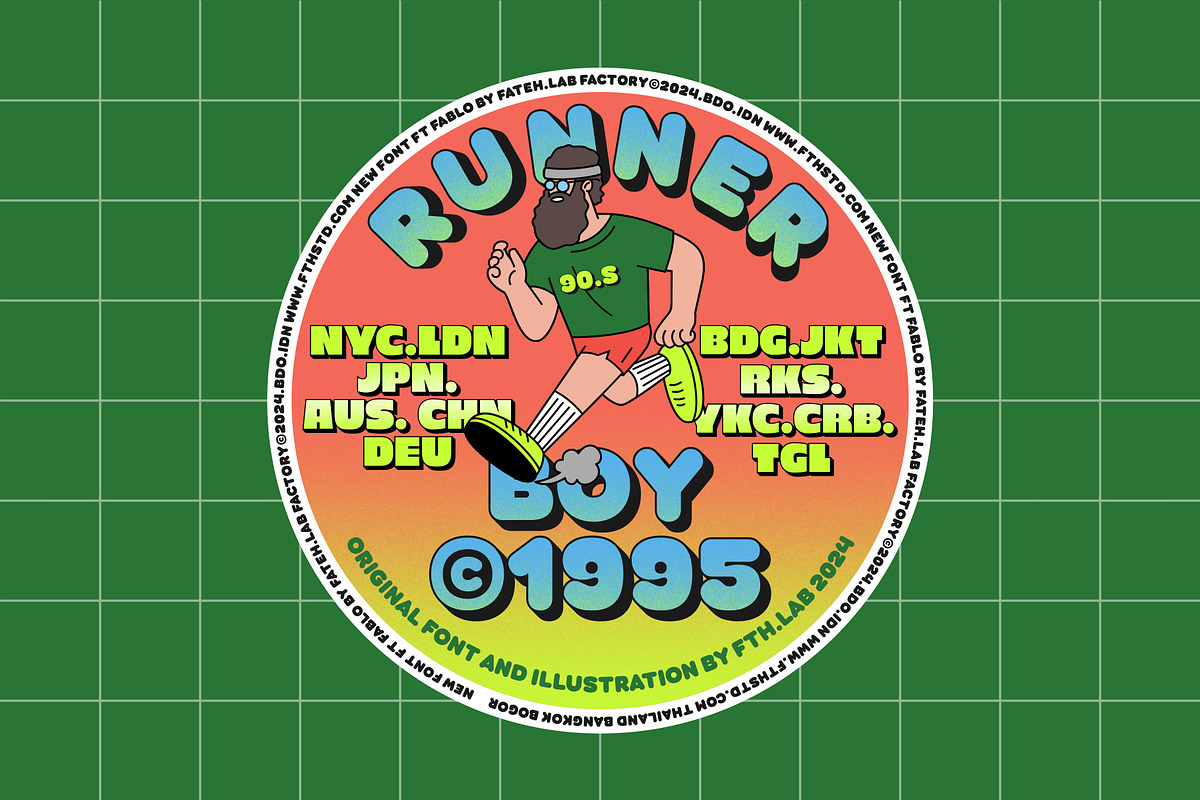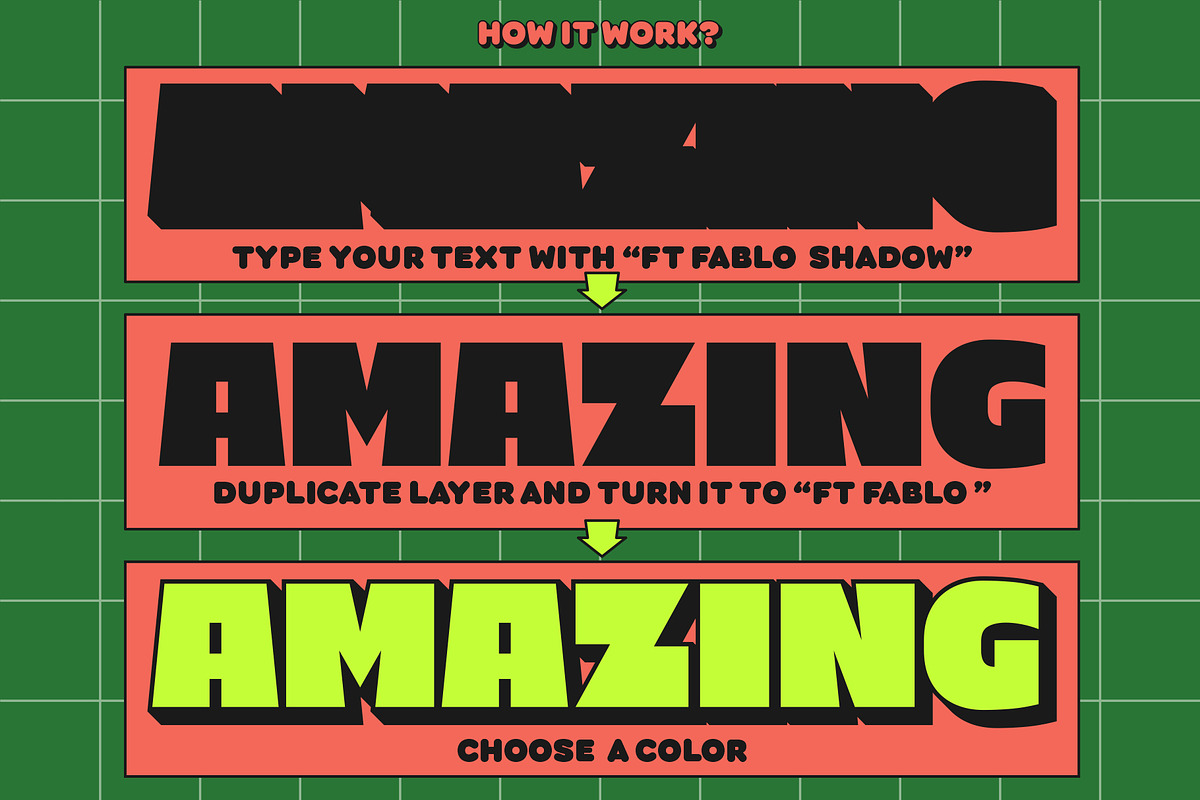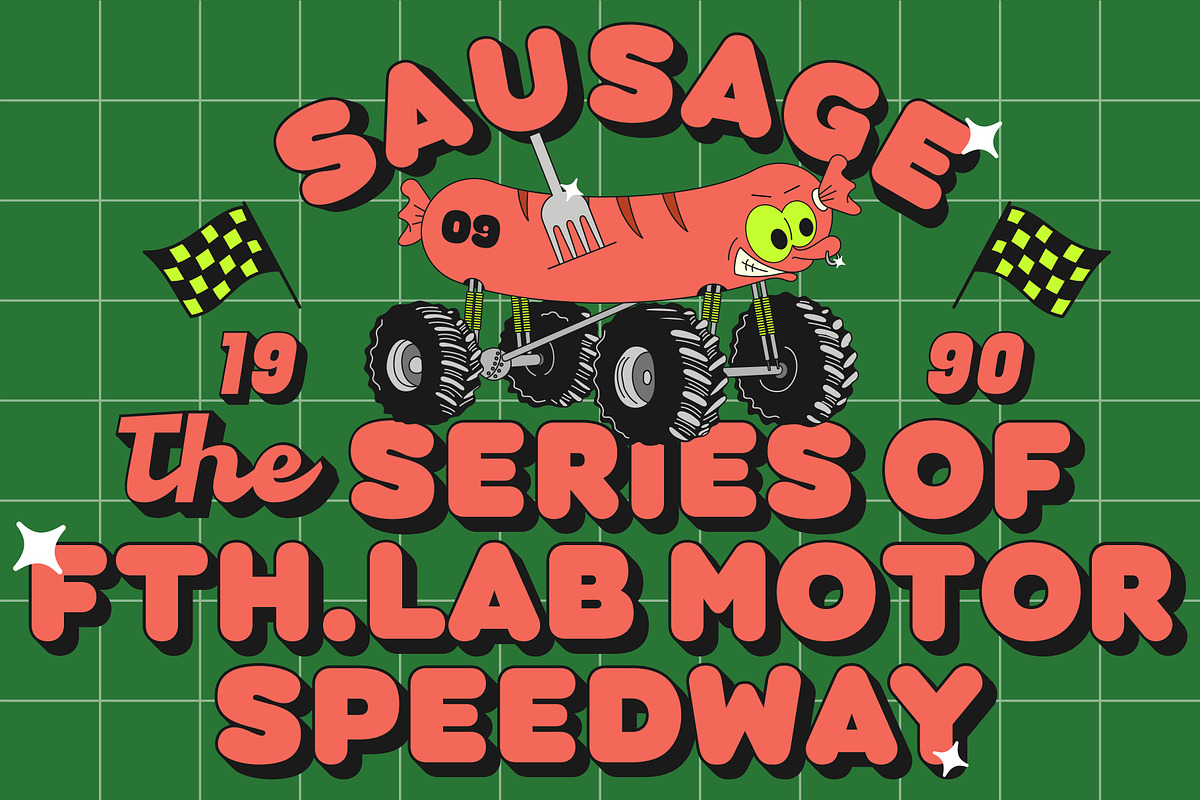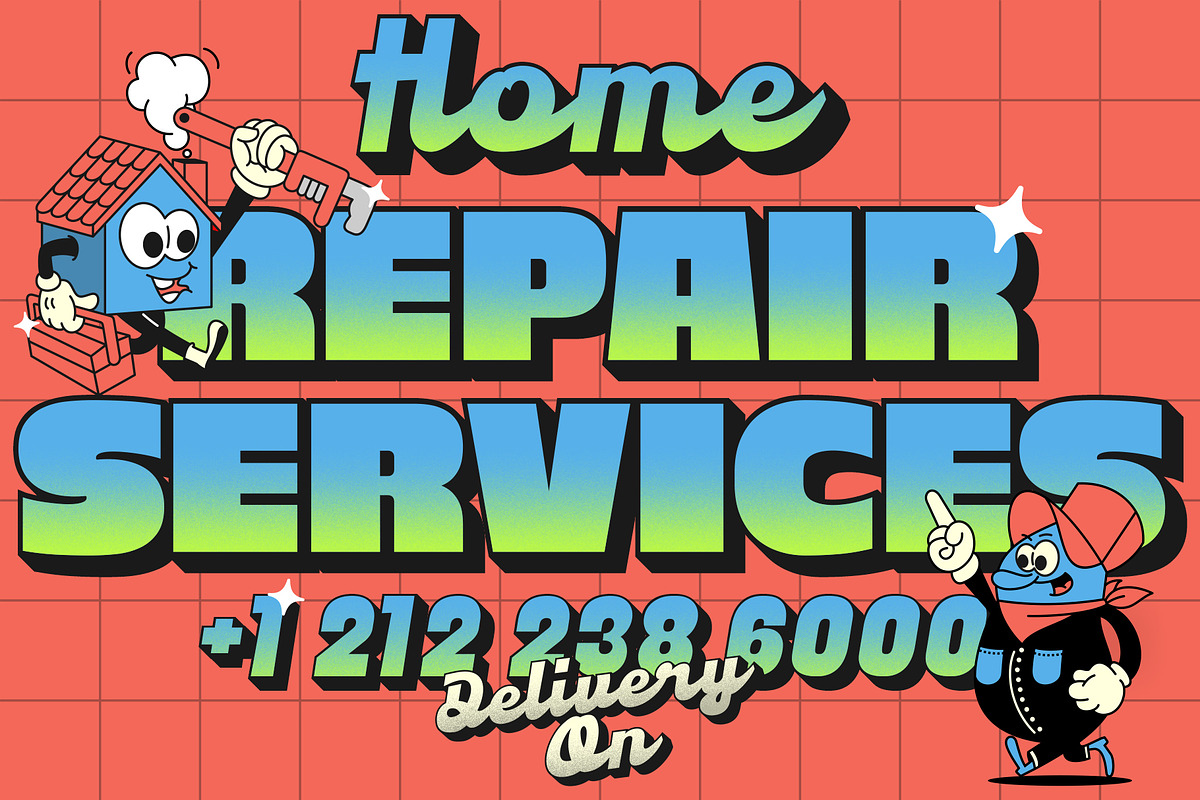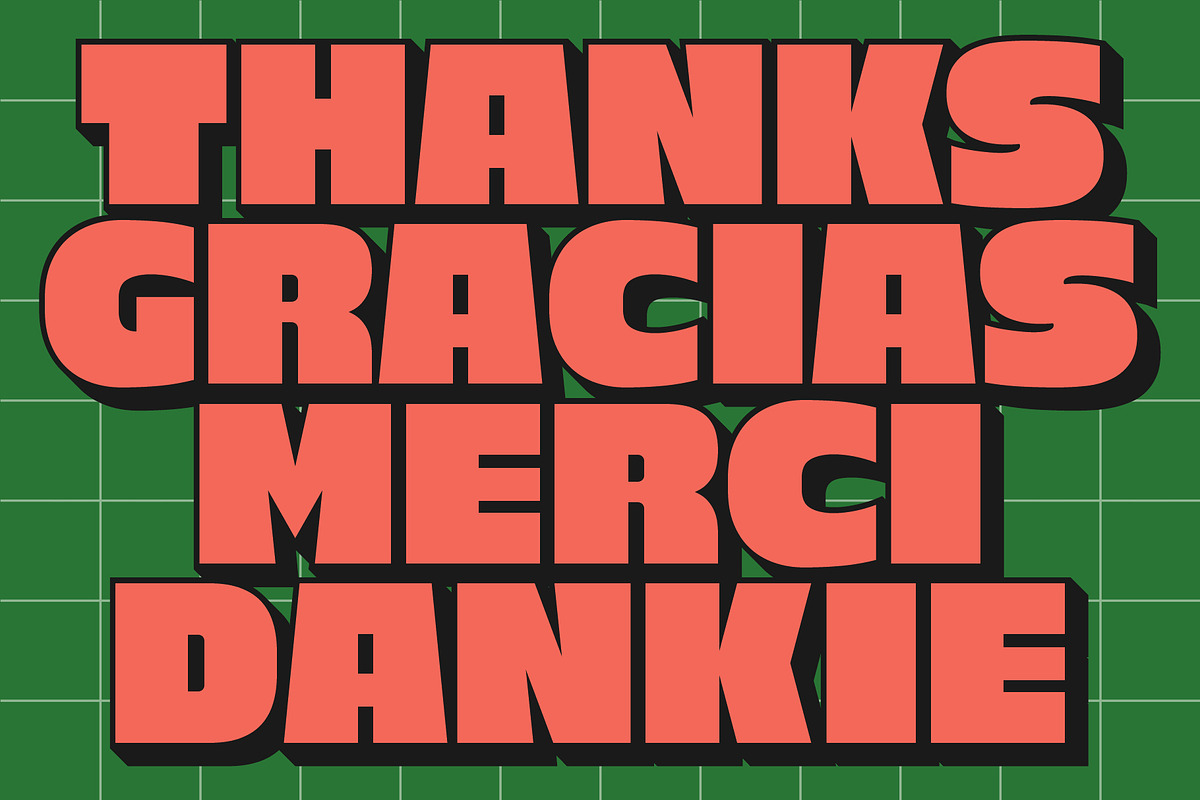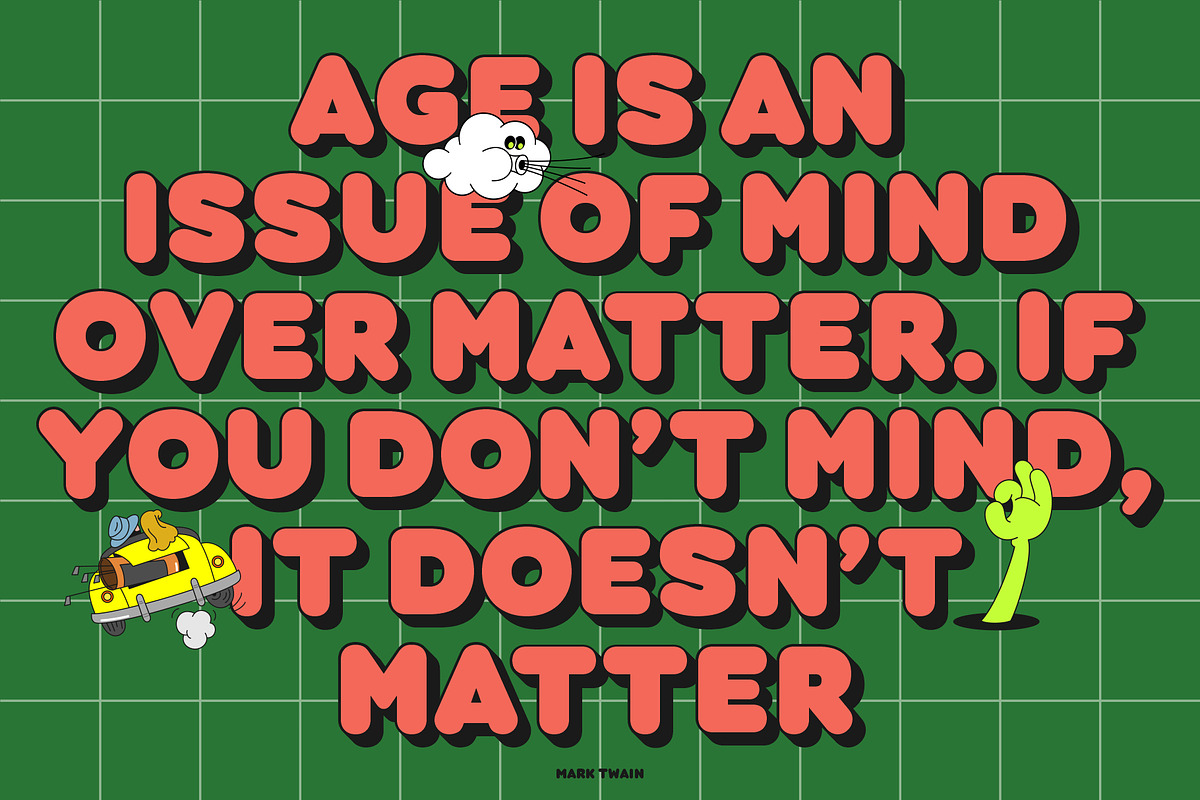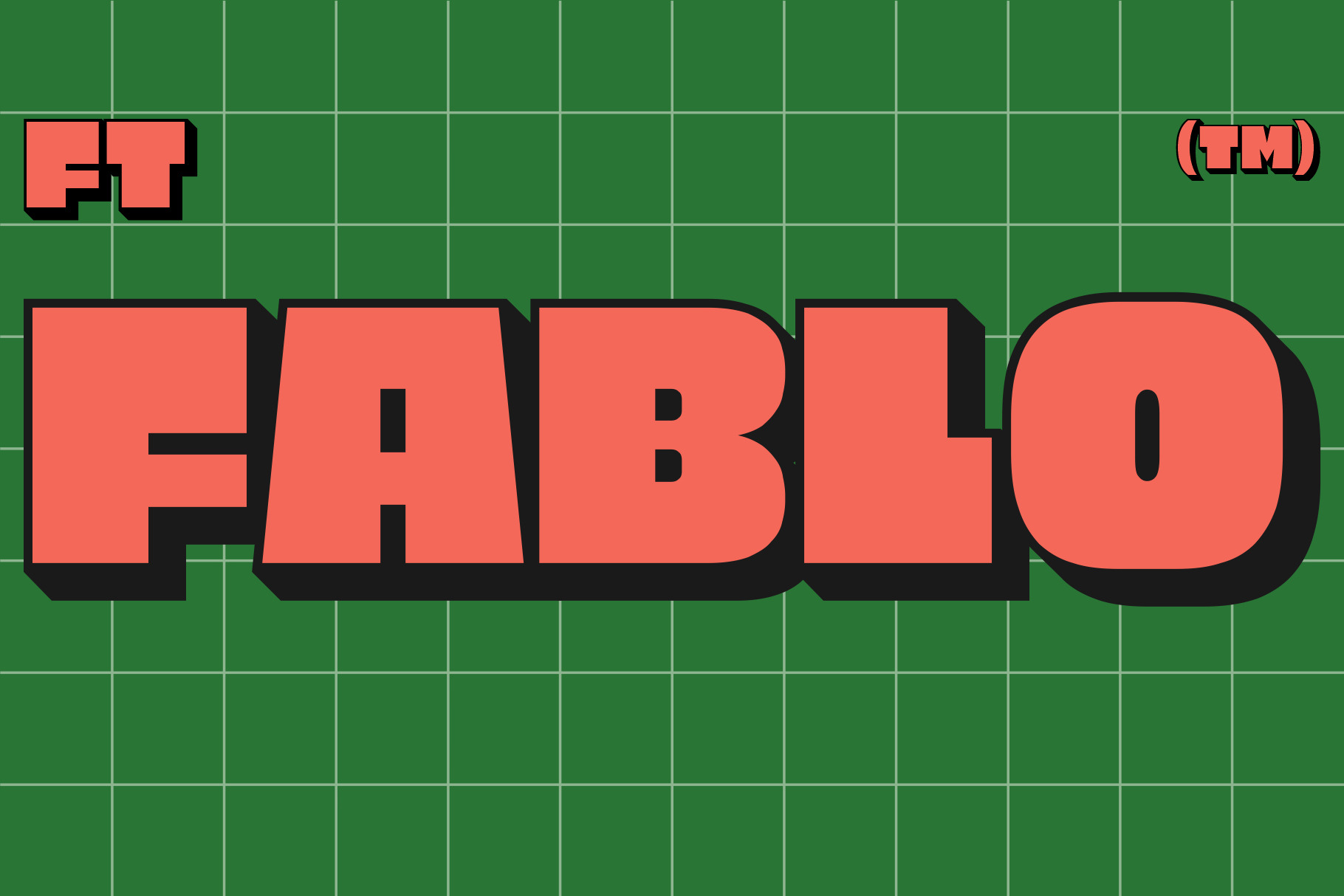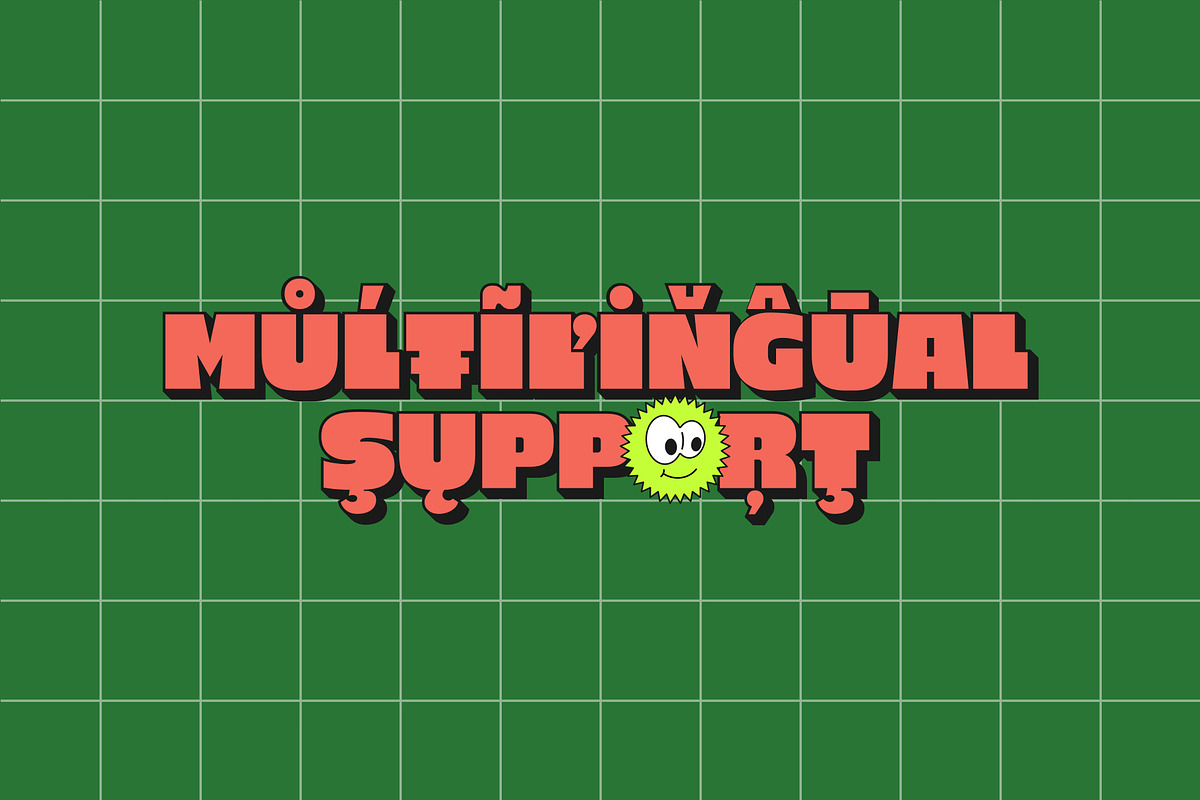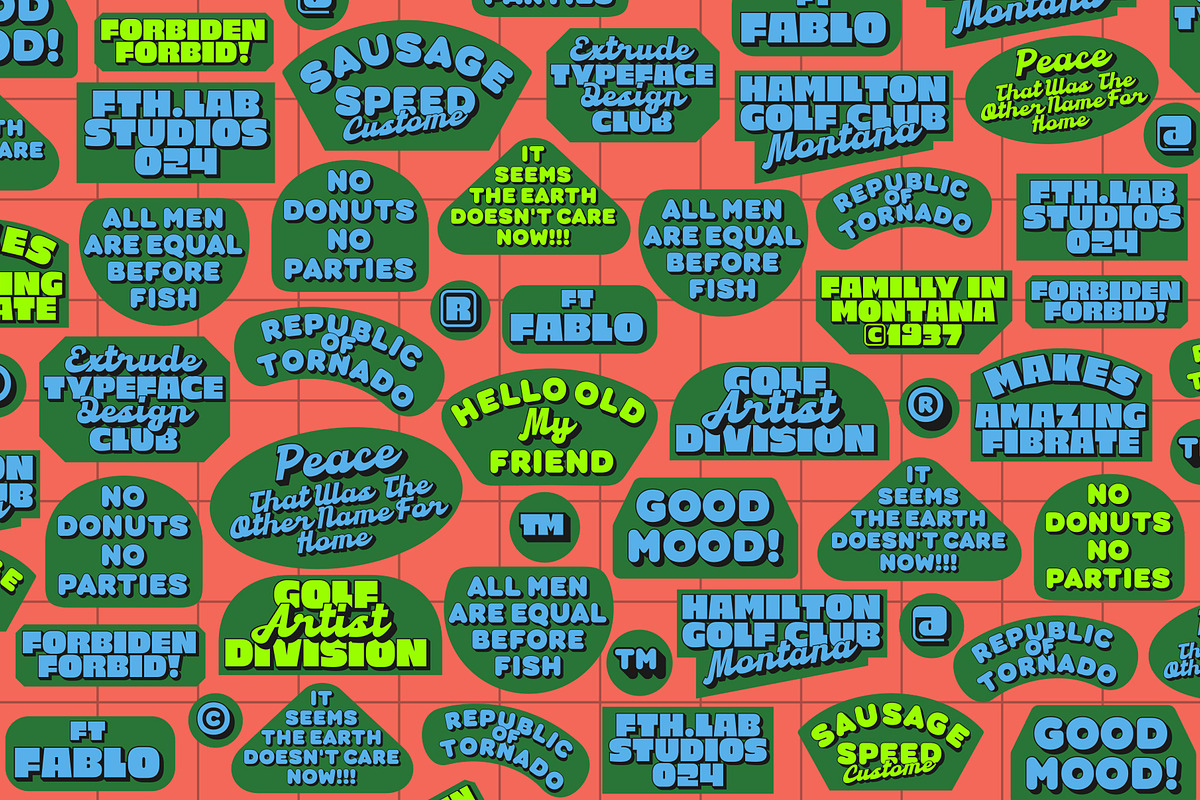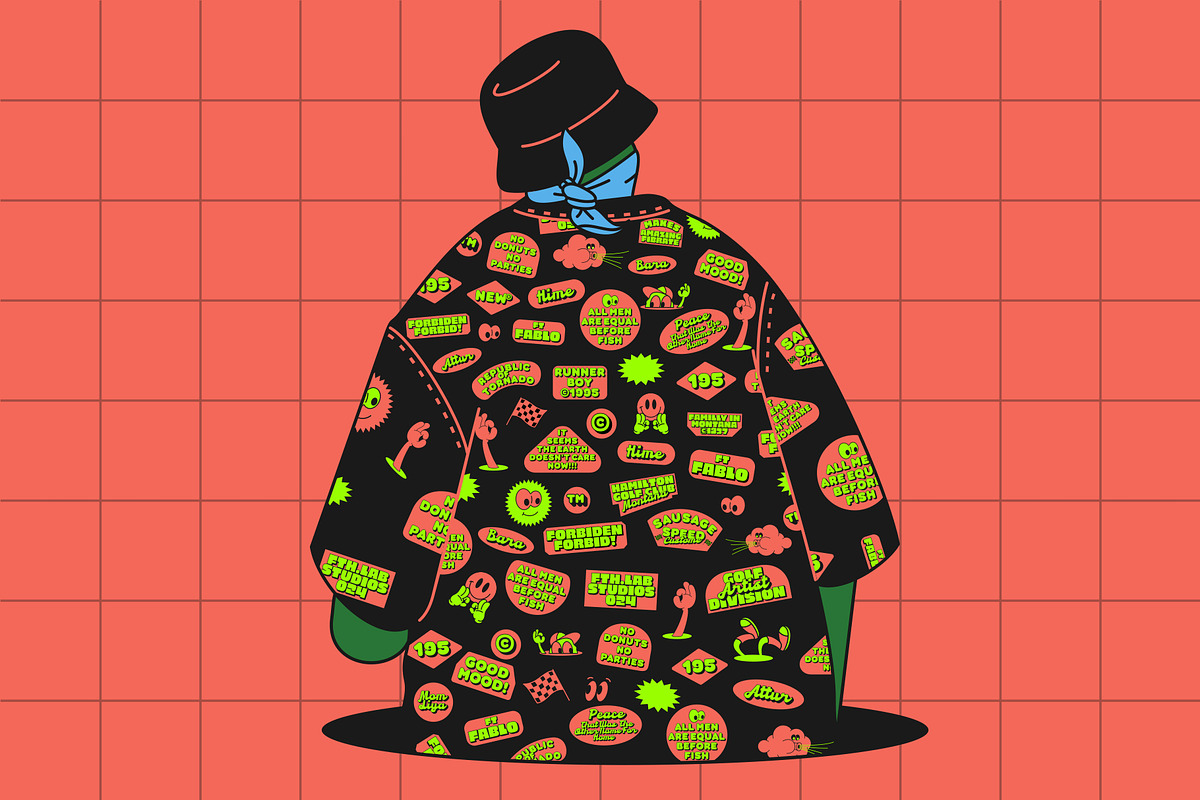
FT FABLO | SHADOW FONT
Ft Fablo is the latest work released from Fateh, Lab! This is a type of shadow font, and it marks the beginning of a shift in current design trends.
With a soft yet bold typographic style, ft fablo has all the elements of life in today's design world. With support for three font styles, this is the right answer for those of you who are designing something great.
It has superior weight in posters, social media, news headlines, magazine headlines, clothing, large print formats - and wherever you want to see it.